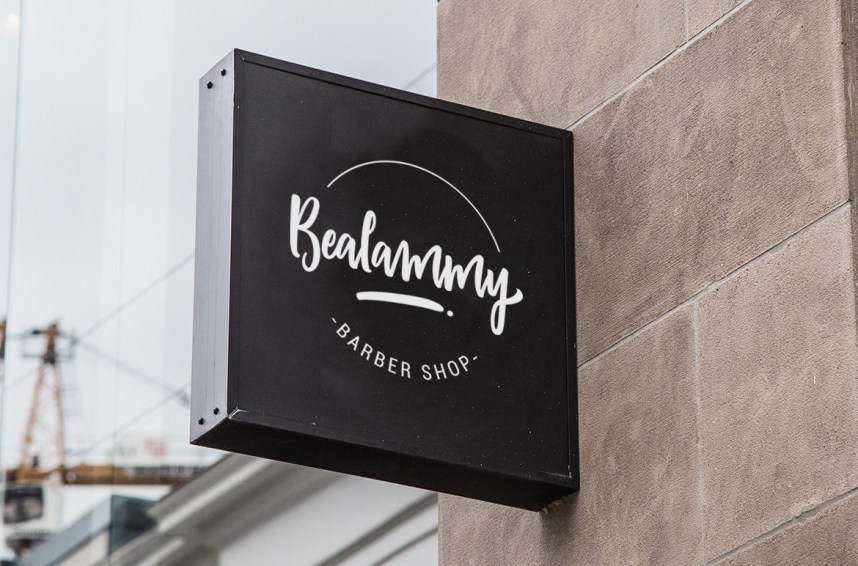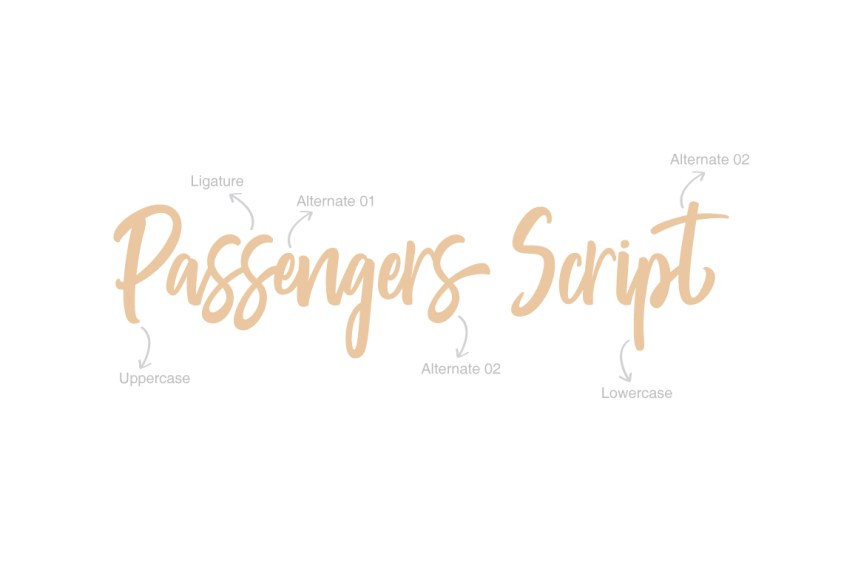
Passengers Script Free Font
Thank you for your interest in this font. Start a new working week with a new free font. A handwritten typeface. Introducing Passengers Script Font! Passengers designed and shared by Pathero Studio. Passengers is a beautiful stand out typeface with classic touch built in 300 glyphs. This typeface can be used for various purposes.such as logos, wedding card, heading, t-shirt, letterhead, signage, lable, news, posters, badges etc.